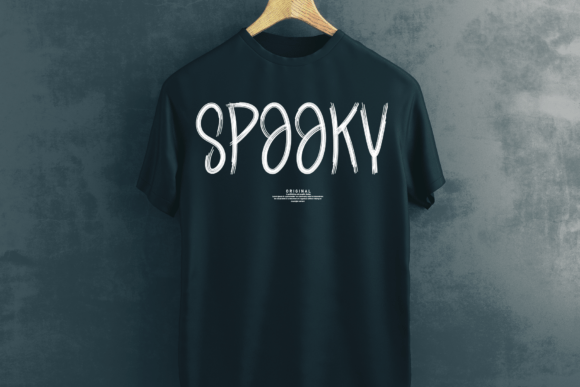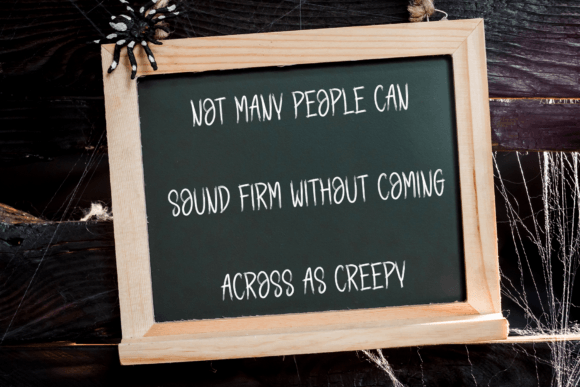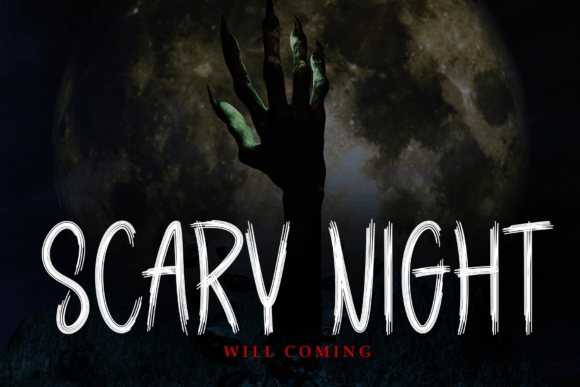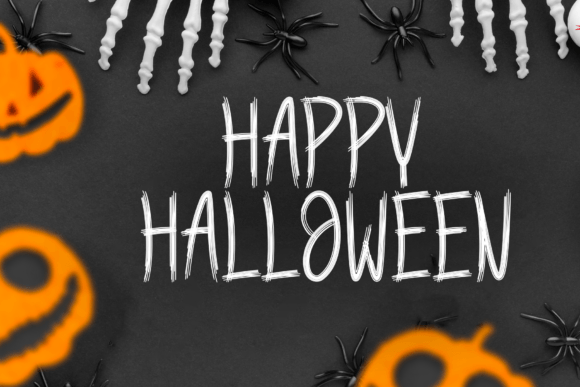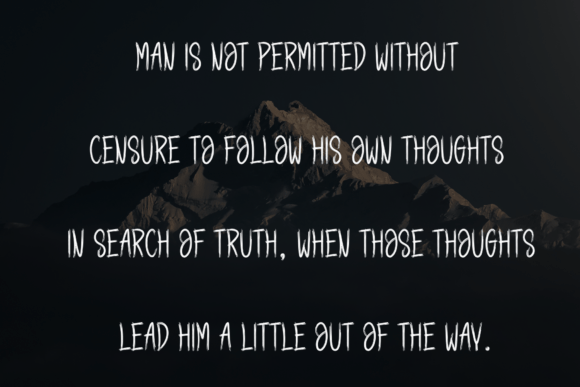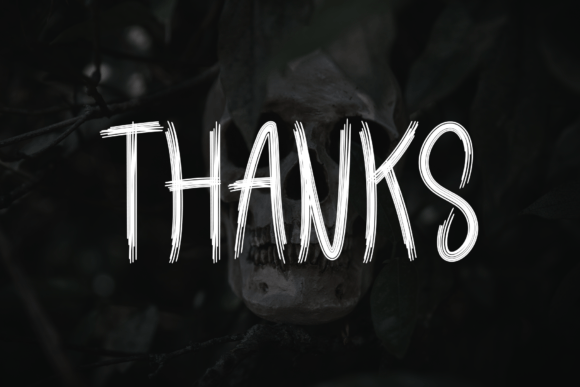
Introduction to Scary Skul Font
this is a sweet and friendly handwritten display font.
Cute and fun, this font is ideal for writing wedding invitations, cards, or any other design that might need a fun touch .